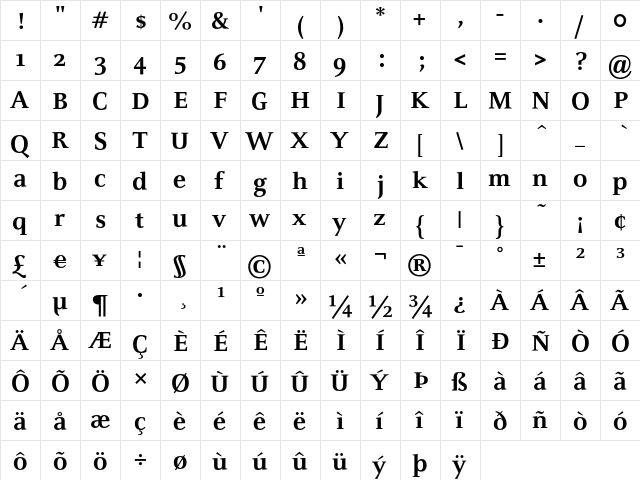
CelesteST Bold
Design Context for CelesteST Typeface
CelesteST takes a measured approach to typography — its balanced proportions and neutral character make it a reliable workhorse for both digital and print work. Its bold stroke weight gives it real presence on the page.
Pro Tip: Use CelesteST in both headline and body roles to test its range before committing to a single application.